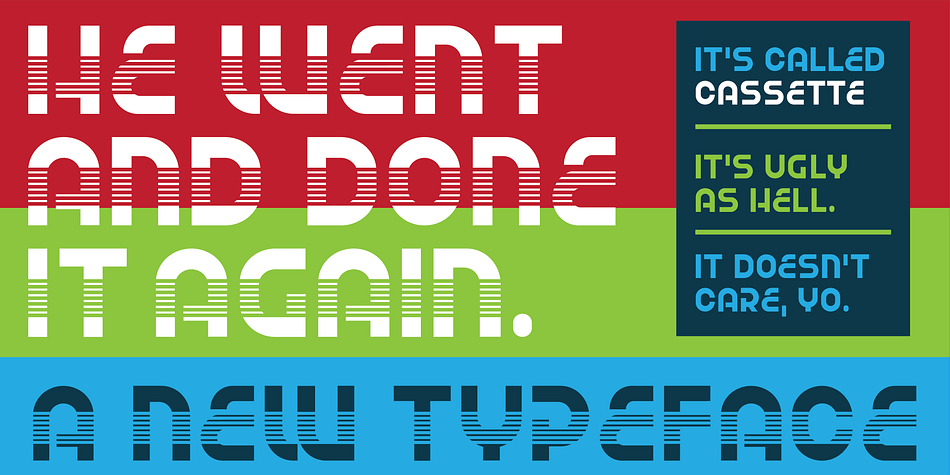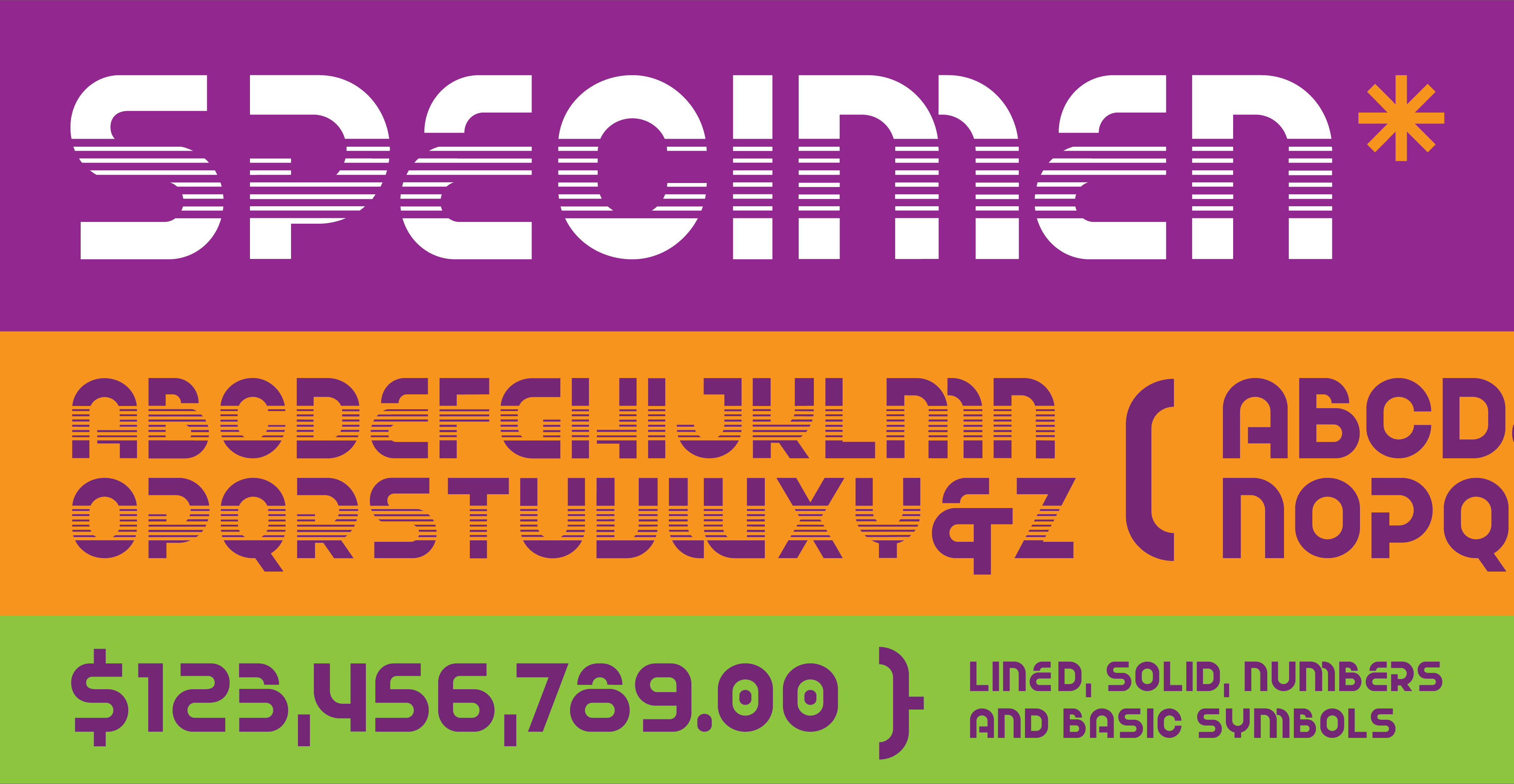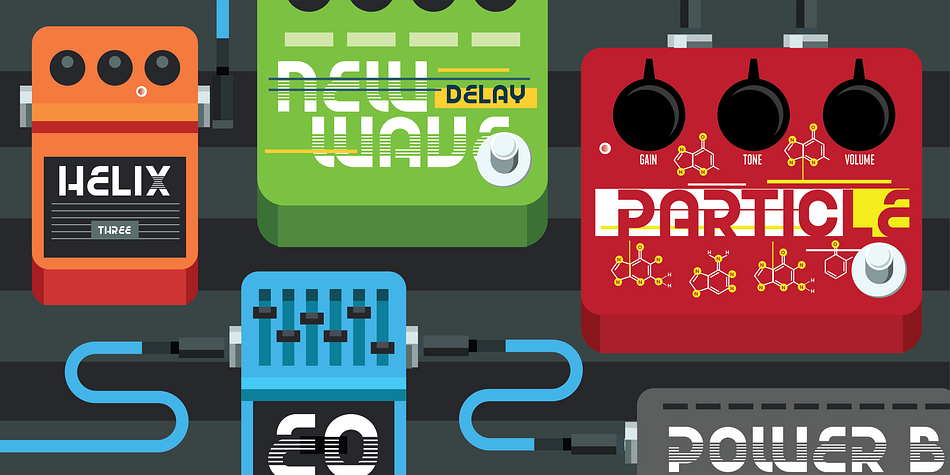
Cassette
Cassette is a display sans and retro font published by Interrobang Type.
Cassette is a typeface which resulted from a custom type experiment for a guitar pedal, which was then expanded into the entire alphanumeric set. The typeface started as a simple fill typeface. But it really comes alive in the lowercase alternates, with the consistent lines holding your line of type together and also allowing for interesting overlay effects.
This type was a very intuitive build; nothing was overthought, and ugliness was accepted and even embraced when letting the numbers build themselves.